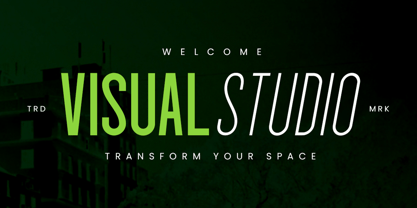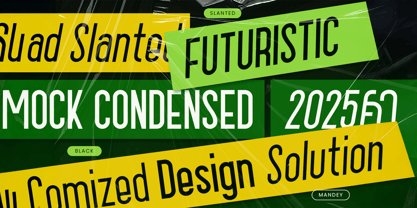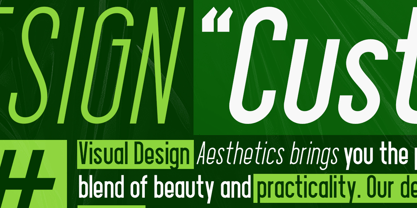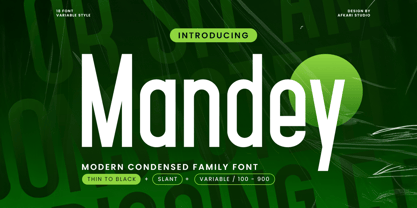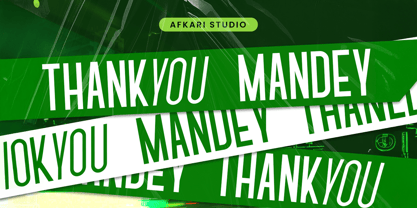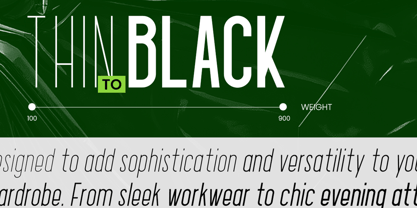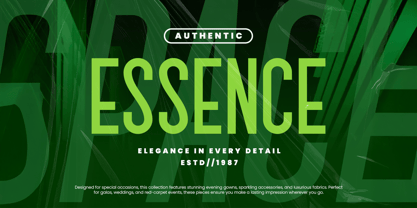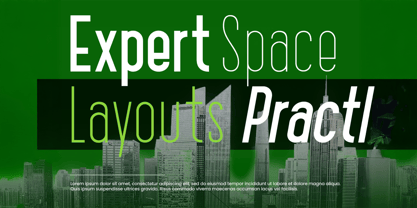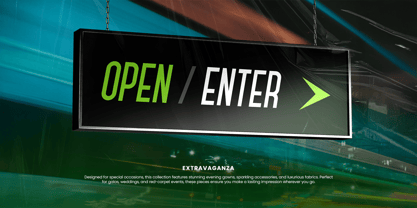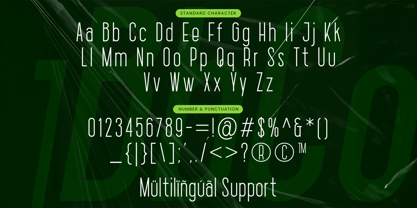
Mandey
by Afkari Studio
The Mandey Font Family was designed by Musthafa Kamal Emje and published by Afkari Studio. Mandey contains 18 styles and family package options. More about this family
Mandey – Clean & Stylish Condensed Sans Serif Font (Thin to Bold Weights)
Mandey is a sleek and versatile modern condensed font family designed for maximum impact and flexibility. With a full range of weights from Thin to Black, including matching Slant styles, Mandey adapts effortlessly to both bold headlines and elegant subtext.
Crafted for designers who value both aesthetics and functionality, Mandey features clean lines, tight spacing, and a contemporary character—making it ideal for branding, editorial design, posters, web interfaces, and beyond.
Need more control? Mandey also comes as a Variable Font, so you can fine-tune the weight and slant to fit your vibe perfectly.
Highlighted Features:
- Complete set of uppercase and lowercase letters, numerals, and punctuation marks
- 18 Fonts, Thin to Black with Variable Family Font
- Multilingual support, including characters like ä, ö, ü, Ä, Ö, Ü, ß, ¿, and ¡
Mandey brings a sharp, modern edge to any project.